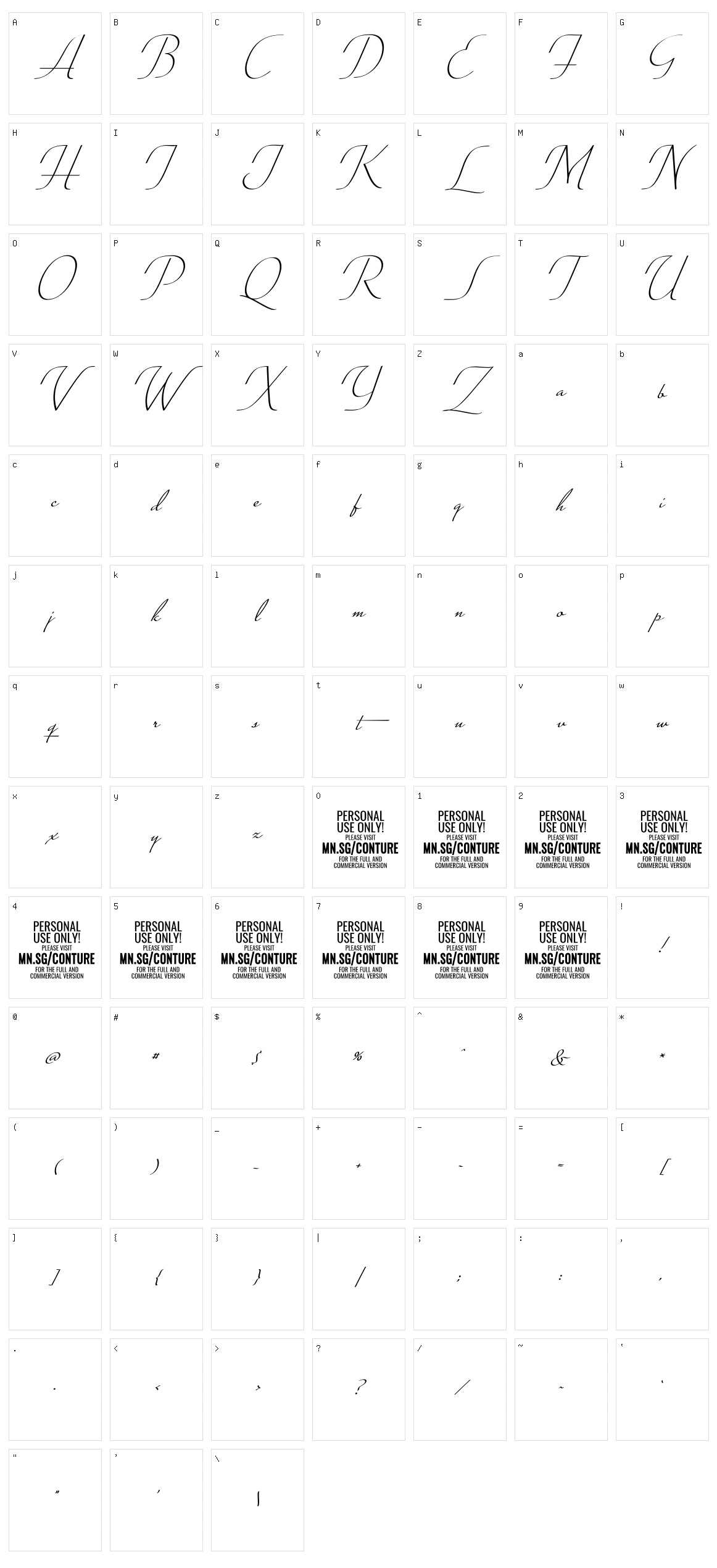
Conture Script is a classic script typeface with a thin contour.
This high-quality font is drawn and created by Måns Grebäck during 2017.
With its hundreds of glyphs, Conture Script supports a very wide range of languages.